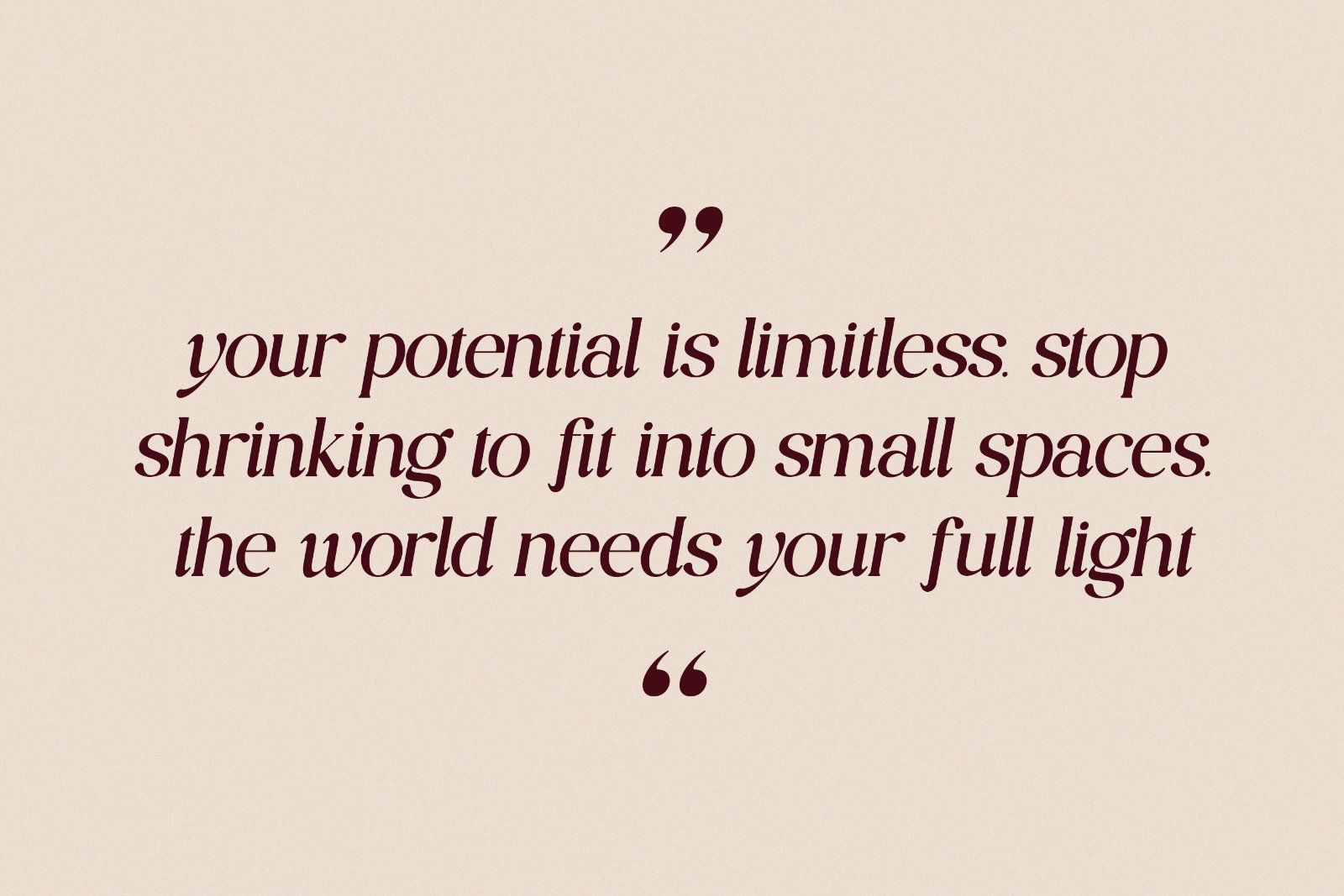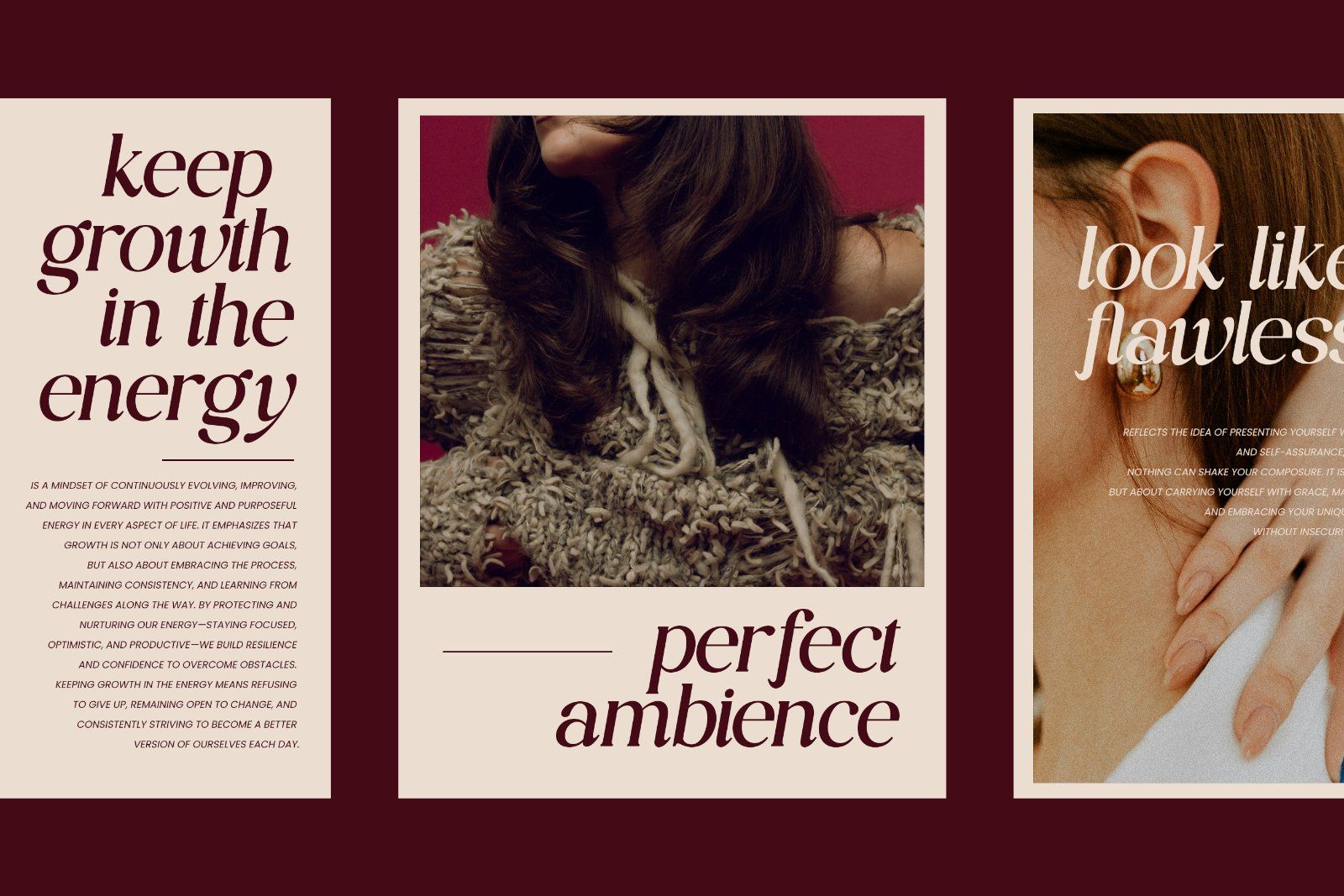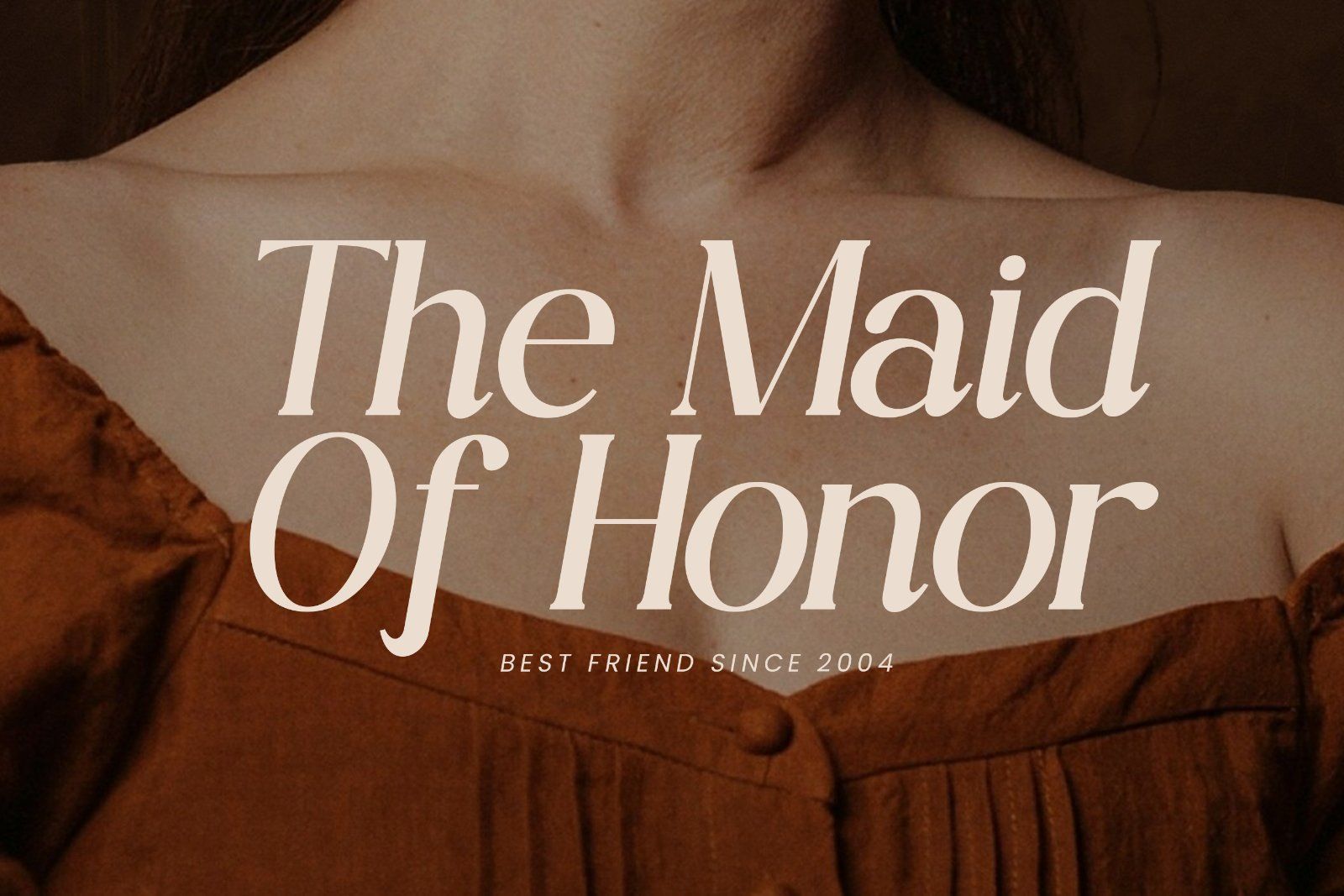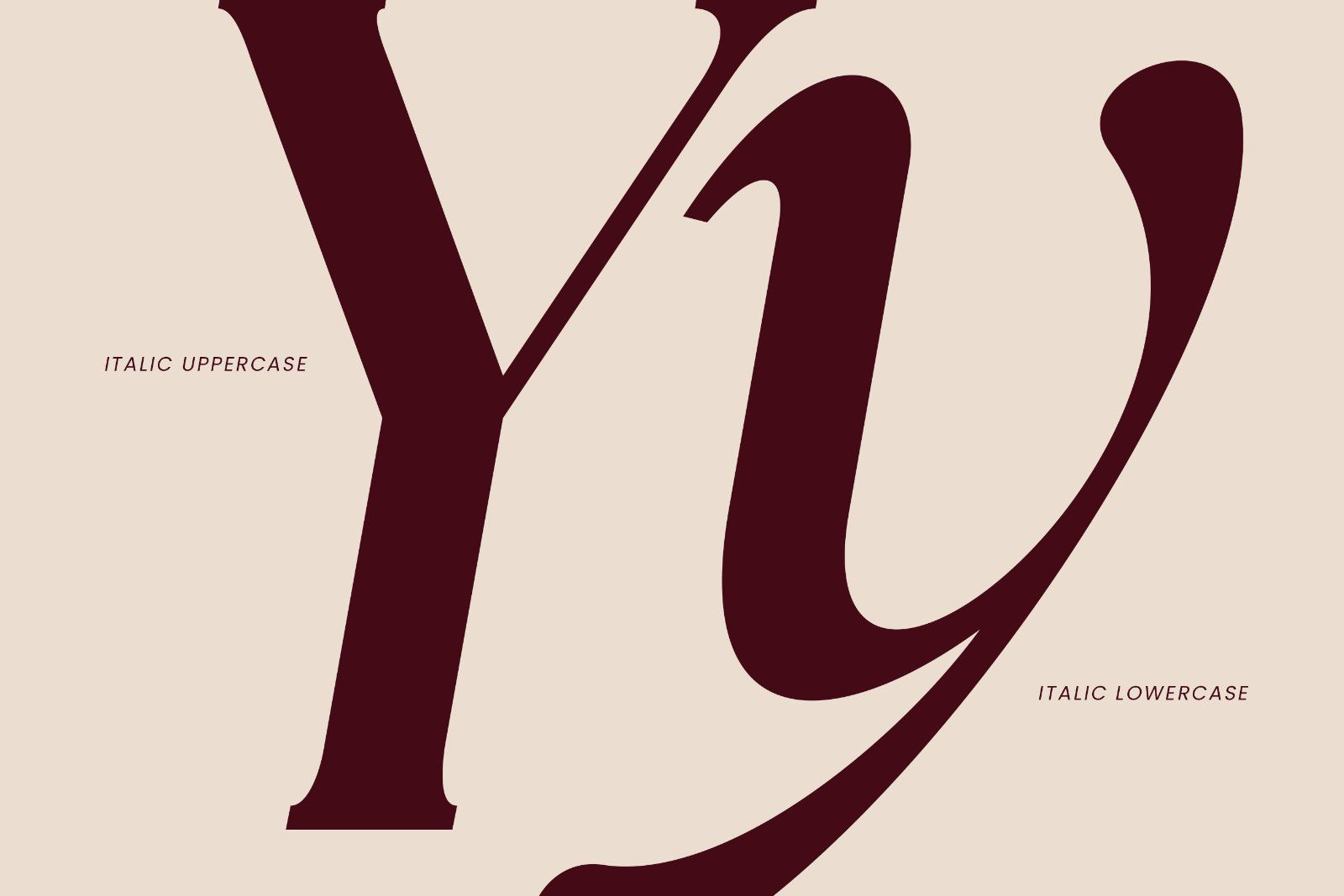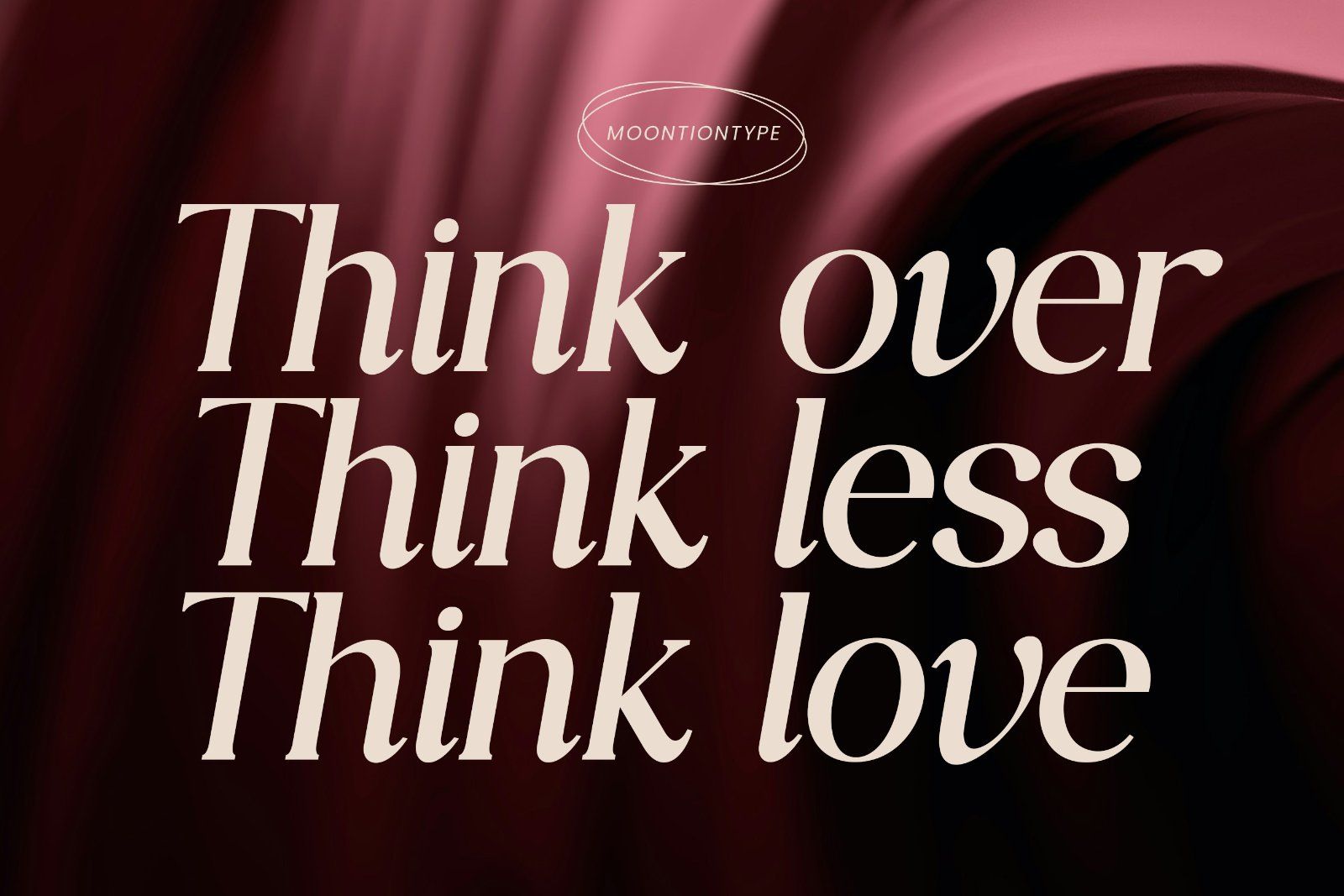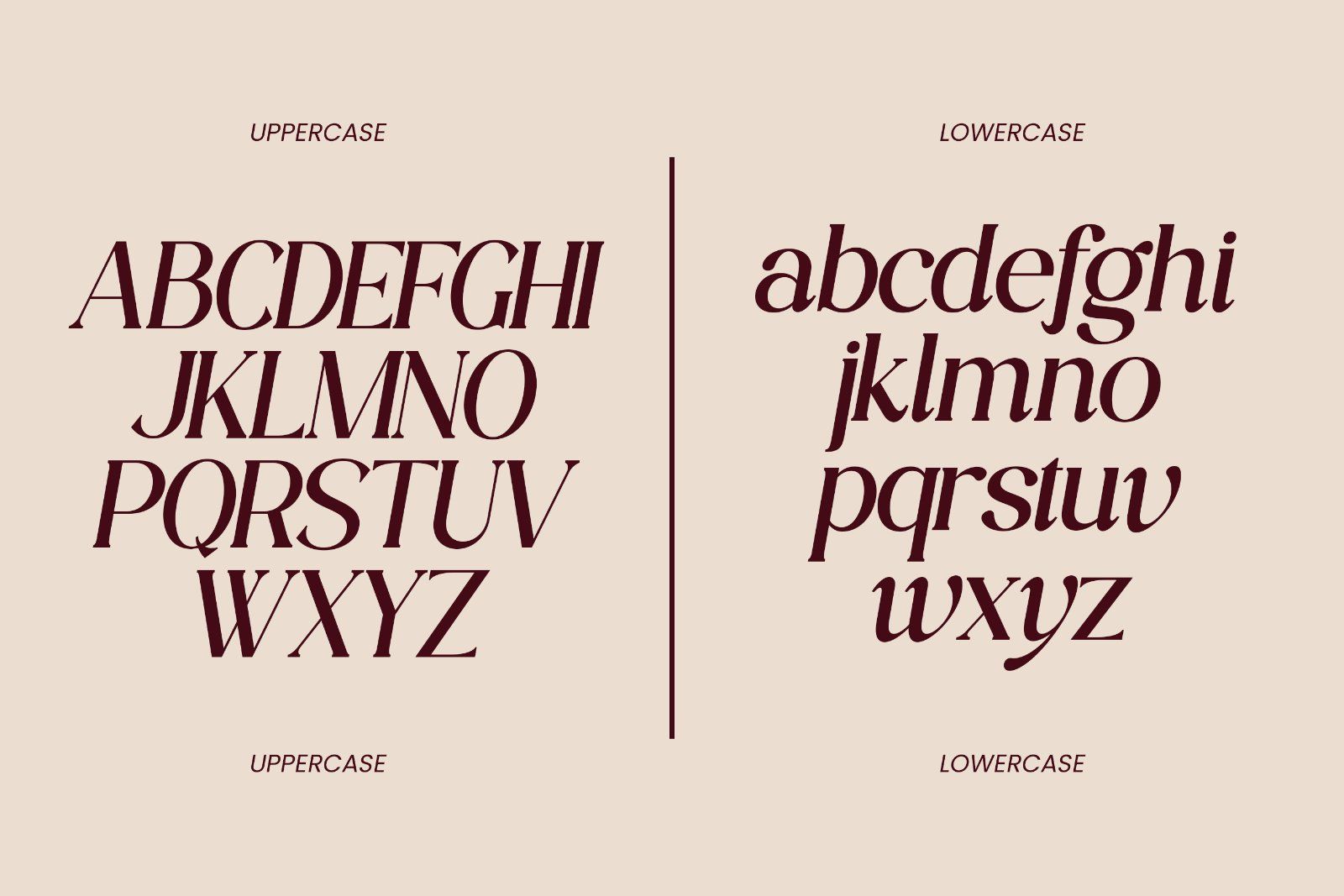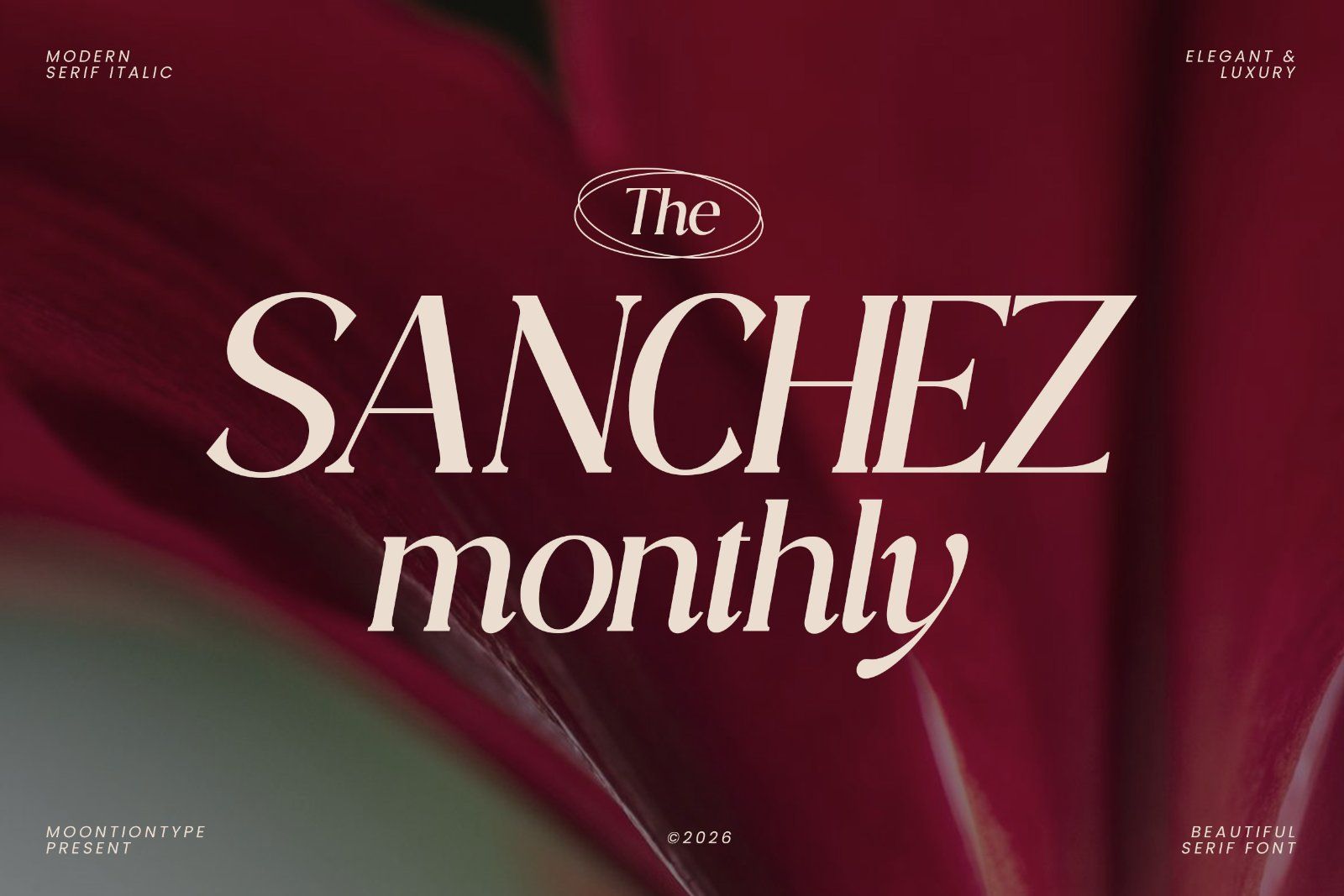
The Sanchez Monthly is a refined luxury serif italic typeface designed to bring sophistication and timeless elegance to your creative projects.
With its graceful italic flow and high-contrast modern serif structure, Sanchez delivers a premium editorial feel—perfect for brands that want to stand out with confidence and style.
Whether you're creating a fashion logo, wedding invitation, magazine layout, or luxury packaging, this typeface adds an elevated, high-end touch.
Perfect For:
• Luxury Branding & Logo Design
• Wedding Invitations
• Editorial & Magazine Layouts
• Fashion & Beauty Branding
• Social Media Graphics
• Website Headers
• Packaging Design
Font Features:
• Modern Serif Italic Style
• Uppercase & Lowercase Letters
• Numbers & Punctuation
• Clean, High-Resolution Curves
• Multilingual Support (Basic Latin)